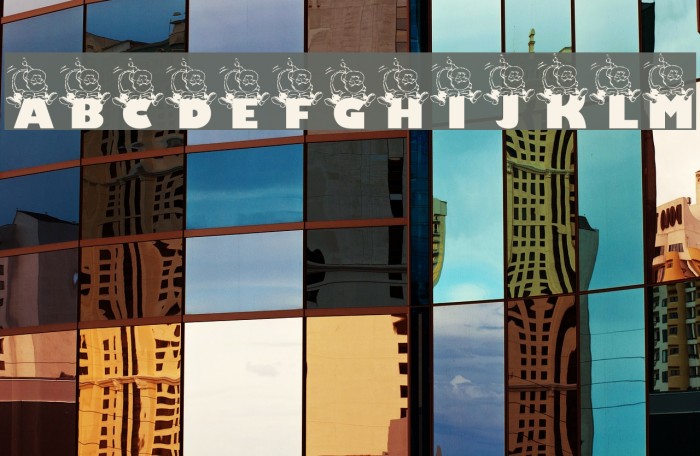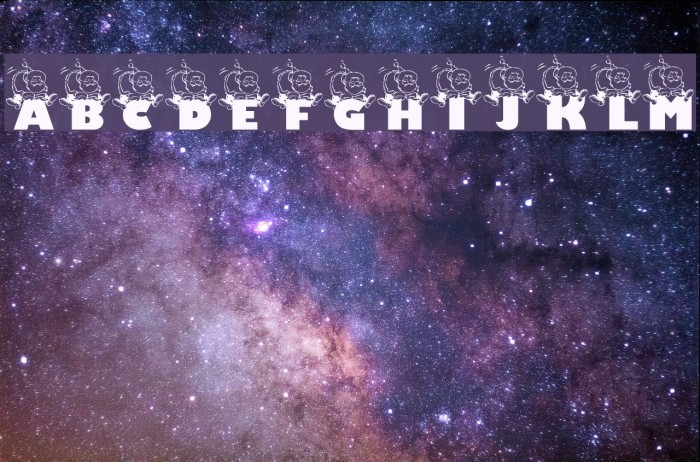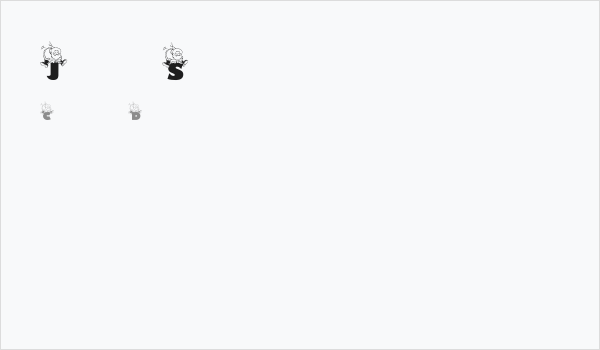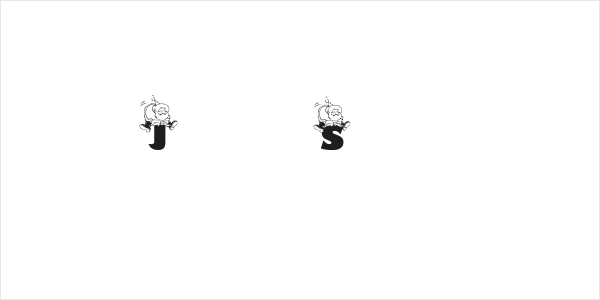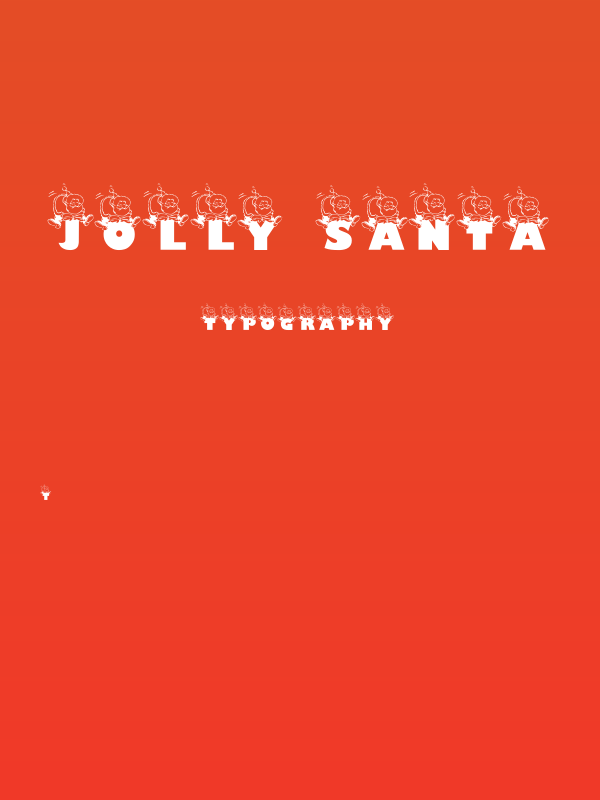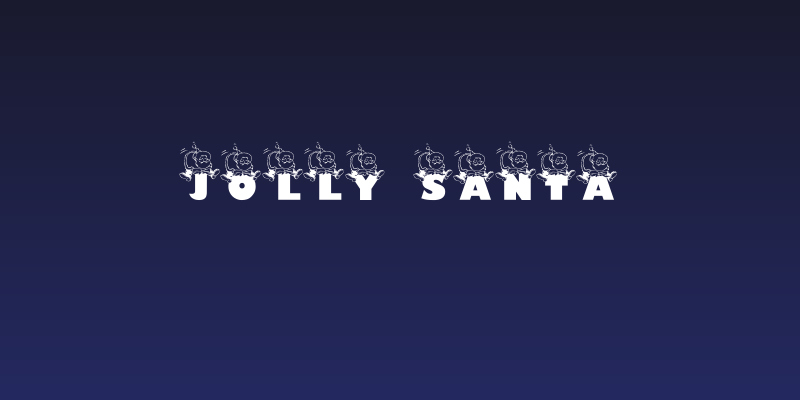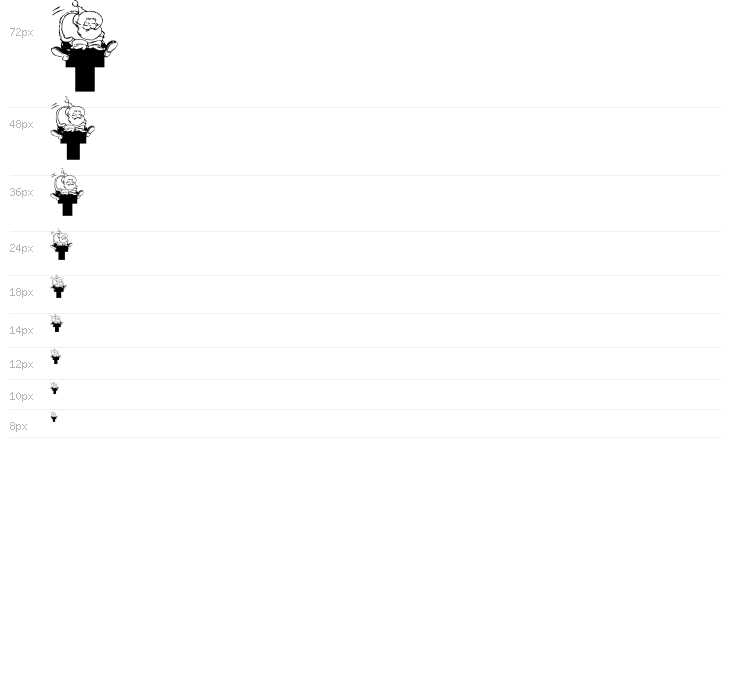
Jolly Santa Font
Jolly Santa Description
This playful and festive font features bold, uppercase letters adorned with whimsical Santa illustrations. Each character is accompanied by a cheerful Santa, adding a unique and joyful touch to the design. The font's boldness ensures visibility and impact, making it ideal for holiday-themed projects. The combination of traditional letterforms with decorative elements creates a lively and engaging aesthetic that captures the spirit of the season.
| Overall Style | Festive, Playful |
| Use Case | Headlines, Decorative text |
| Proposed Projects | Ideal for holiday cards, festive banners, Christmas-themed posters, and playful invitations. |